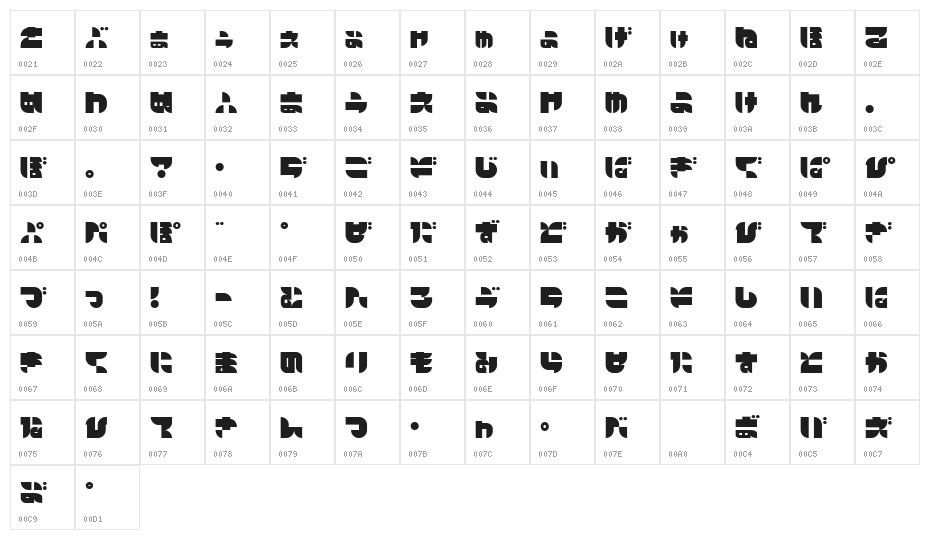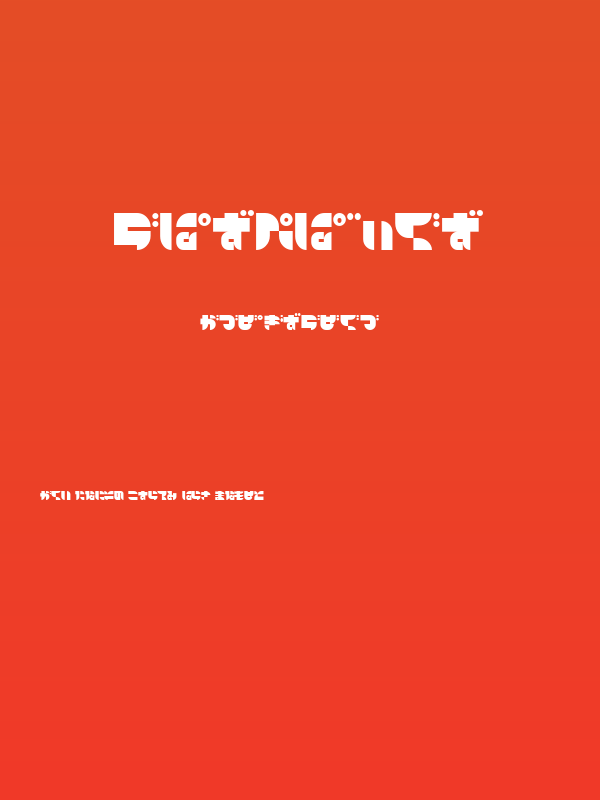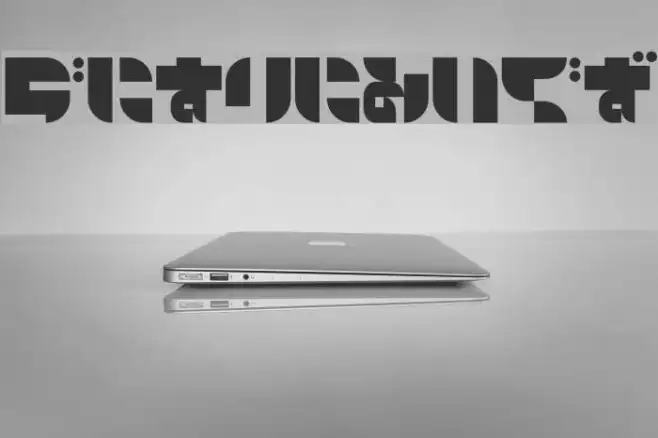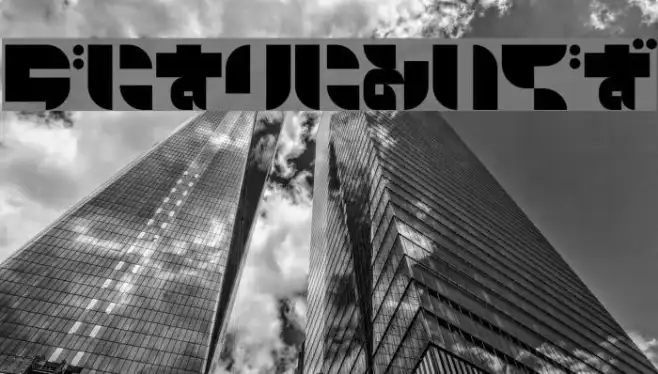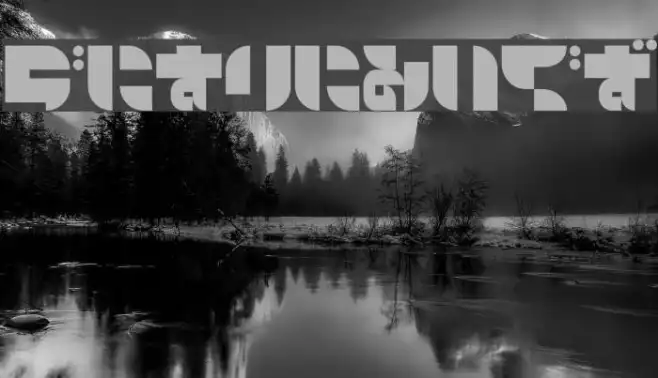
AirlineHR Font
AirlineHR Description
This font features a bold, geometric design with a distinctly modern and futuristic aesthetic. The characters are constructed with thick, block-like shapes, creating a strong visual impact. The use of negative space is prominent, giving the font a unique and artistic flair. The rounded edges and uniform stroke width contribute to a cohesive and harmonious appearance. This style is particularly eye-catching and is likely to stand out in any design context. The font's boldness and distinctive character shapes make it suitable for creative and innovative projects.
| Use Case | Logos, Headlines |
| Proposed Projects | Ideal for branding, posters, album covers, and any project requiring a strong visual impact. |